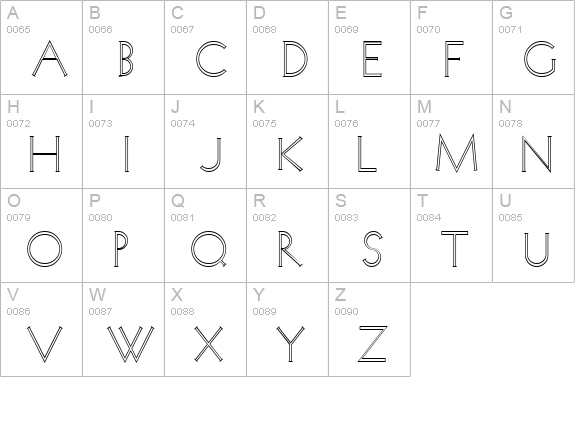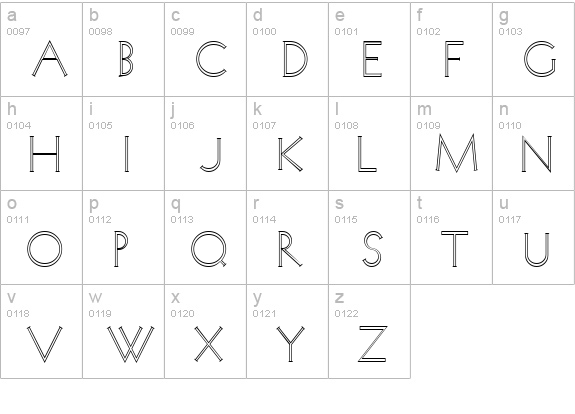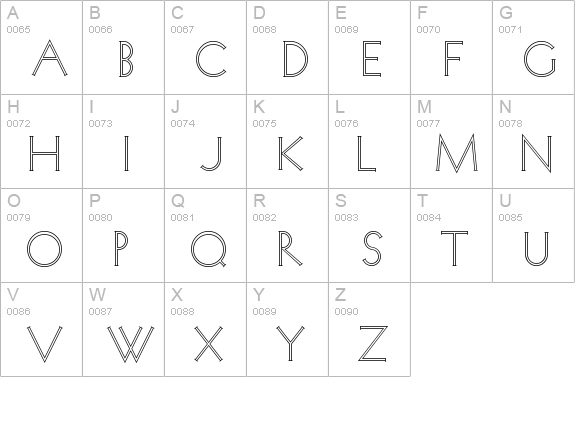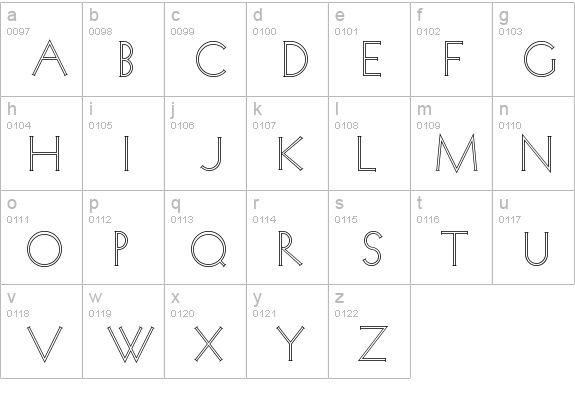
Koch Quadrat Outlines font is a modern and stylish typeface that adds a touch of sophistication to any design project. With its clean lines and geometric shapes, this font is perfect for creating eye-catching headlines, logos, and branding materials. The outline style gives a contemporary and edgy look to your designs, making them stand out from the crowd. Best of all, Koch Quadrat Outlines font is available for free download at FontsMarket.com. You can easily access this versatile and professional font to elevate your creative projects without breaking the bank. Whether you're designing a poster, website, or packaging, Koch Quadrat Outlines font will bring a touch of elegance and flair to your work. Download it now and enhance your designs with this stunning typeface!